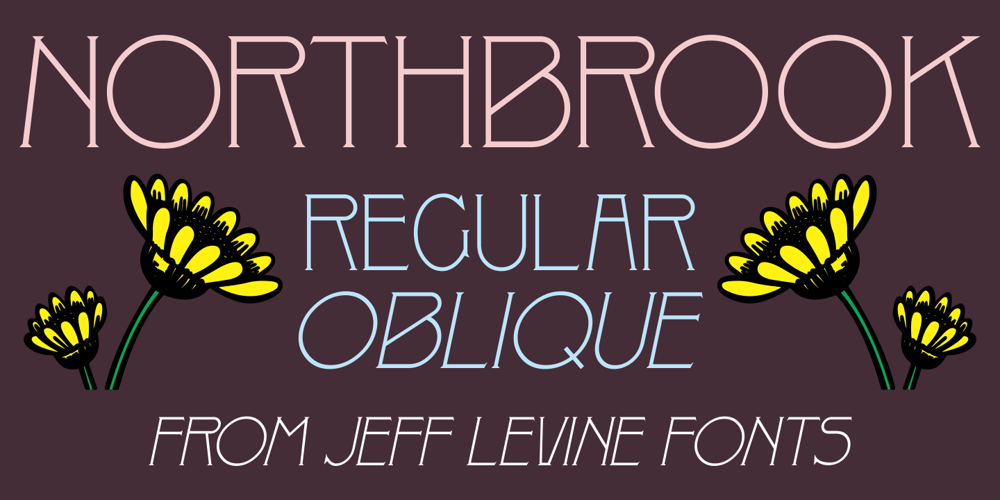
Northbrook JNL Font Family was designed by Jeff Levine and published by Jeff Levine. Northbrook JNL contains 2 styles and family package options. A monoline spurred sans serif typeface named “Elandkay” from the 1895 Cleveland Type Foundry specimen book was the design model for Northbrook JNL. This Art Nouveau-influenced design is available in both regular and oblique versions.